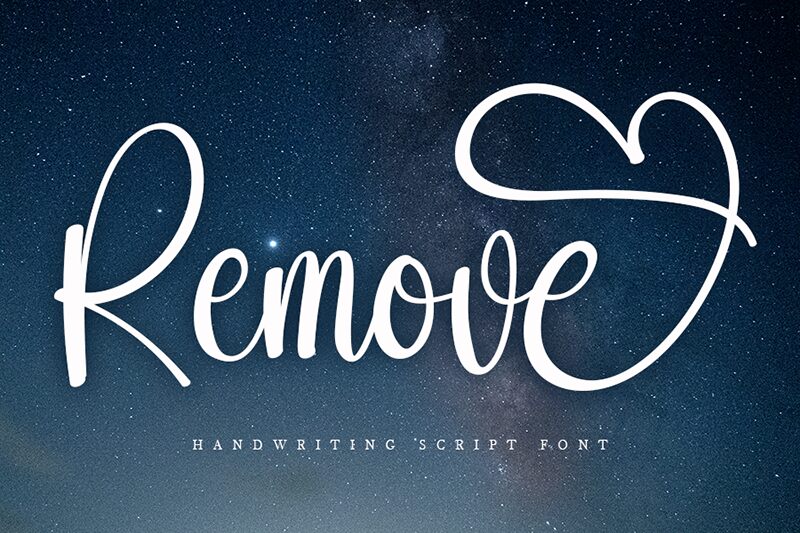
Remove font by creatype designer is a free handwritten font offering an elegant, flowing, and dynamic style. With its contemporary and signature-inspired design, the font has a stylish feel that is expressive and romantic. Truly artistic, the personalized appearance makes it ideal for capturing your audience’s attention.
The font is a great match for all kinds of headings and titles, but it can also be incorporated gracefully into logo designs, book covers, posters, advertisements, and more.
This font features a classy calligraphic influence combined with a contemporary and fresh feel. Its versatility makes it suitable for a wide range of creative projects, including letterheads, titles, and stationery.